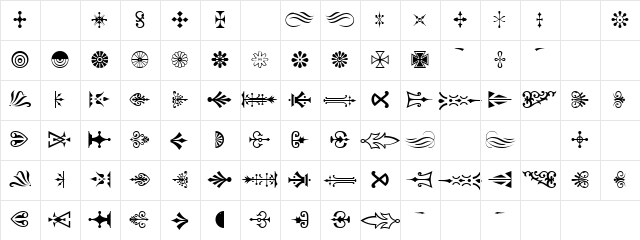
Teflon Regular
Design Context for Teflon Typeface
Teflon is a composed and adaptable typeface that performs quietly and consistently across a wide range of design contexts.